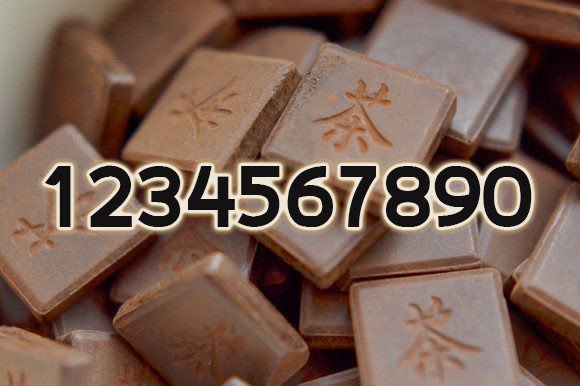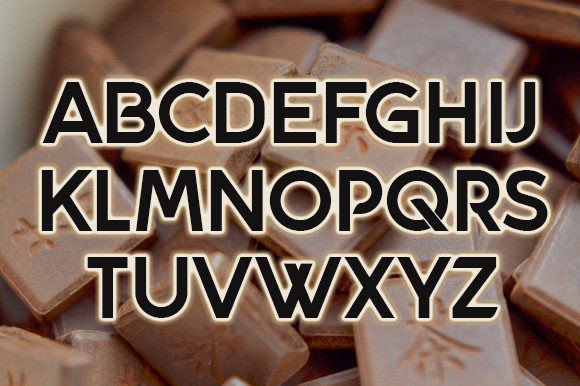
Discover the Warmth of Brown Font
As a designer, you know the thrill of that moment when a new project sparks creativity and ideas start flowing. Maybe it’s a late-night brainstorming session, or a sudden burst of inspiration while sipping coffee. Whatever the case, it’s those moments that make the design process so exhilarating. And today, I want to share with you a font that will make your designs stand out – Brown Font.
Brown Font is a stunning sans serif font designed to elevate your designs to the next level. With its elegant lines and subtle warmth, it’s perfect for adding a touch of sophistication to your posters, flyers, banners, and social media graphics. Whether you’re a seasoned pro or just starting out, Brown Font is an invaluable tool that will help you create visually stunning designs that capture attention and convey your message.
Brown Font Key Features
- Font Family: Brown Font is a sans-serif typeface, designed to be clean and modern.
- Font Size: Brown Font supports a wide range of font sizes, from 8 to 72 points, making it suitable for various applications.
- Resolution: Designed to be scalable, Brown Font is suitable for use at various resolutions, including screen and print.
- Unique Characteristics: Brown Font features a unique, warm, and earthy tone, making it perfect for designs that require a natural feel.
- Language Support: Brown Font supports a wide range of languages, including Latin, Cyrillic, and Greek alphabets.
Brown Font Review
Overall, I’m a bit torn with the Brown Font. On one hand, there are some things that I think it does really well, ✨ but on the other hand, there are some limitations that hold it back.
- ✨ The Brown Font is highly legible, even at smaller font sizes. It’s clear and easy to read, making it a great choice for body text.
- ✨ The font has a warm, earthy feel to it, which can be really effective for certain designs and branding.
- ✨ The font is highly versatile, and can be used in a variety of different contexts, from digital design to print.
- ⚠️ The Brown Font can feel a bit too casual for certain applications. It’s not a font that I’d recommend using for formal or professional designs.
- ⚠️ The font can also be a bit too bland at times. It lacks a bit of personality and flair, which can make it feel a bit generic.
Overall, I think the Brown Font is a solid choice, but it’s not a font that I’d use for every project. It’s great for certain applications, but it’s not a font that I’d recommend using all the time.